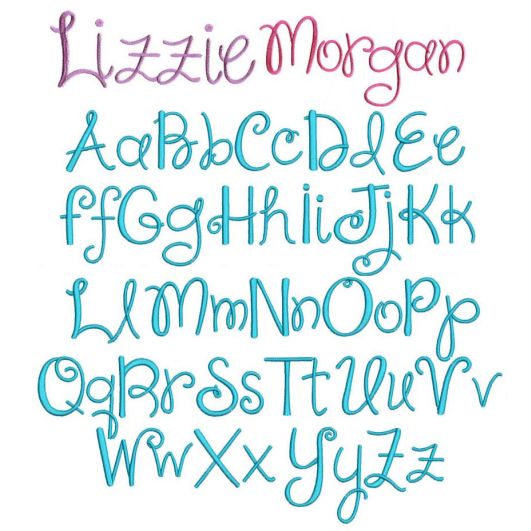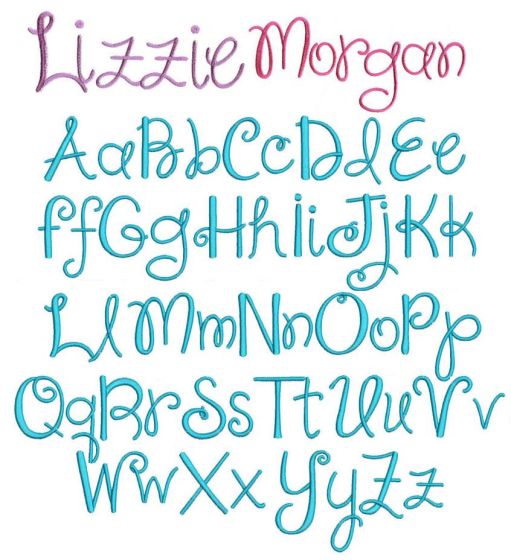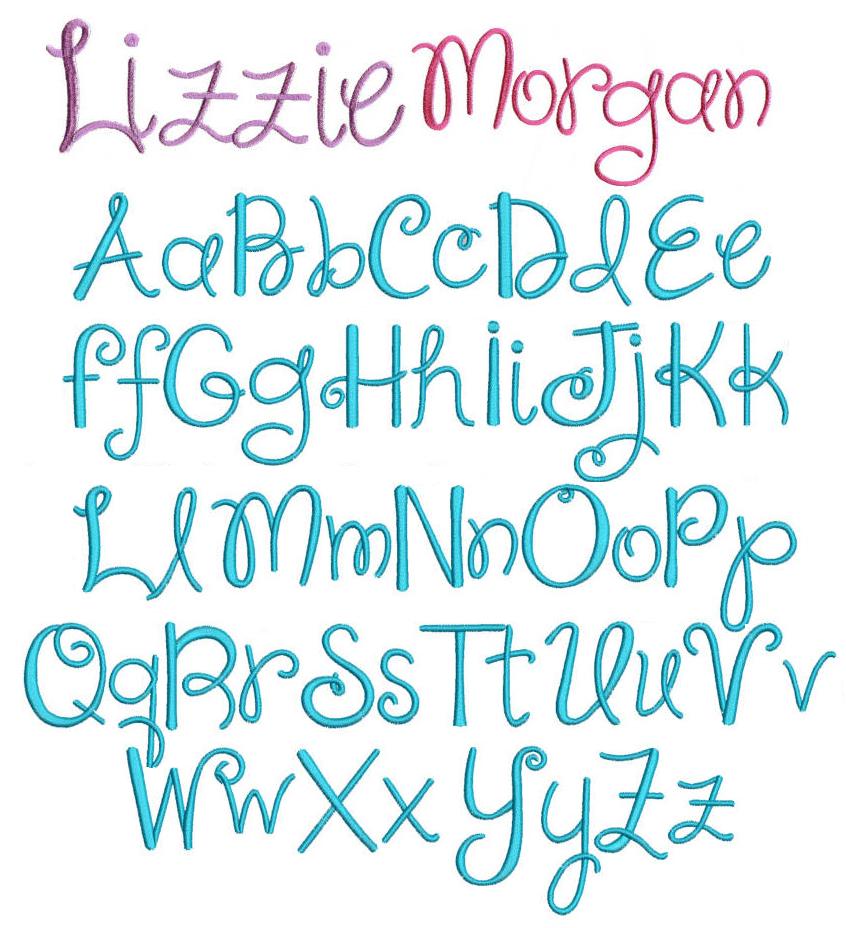
Shine Your Light Satin Stitch Embroidery Font
A fun and whimsical font for monogramming and personalizing your projects! All of our font alphabets are 100% manually digitized to bring you maximum stitch quality.